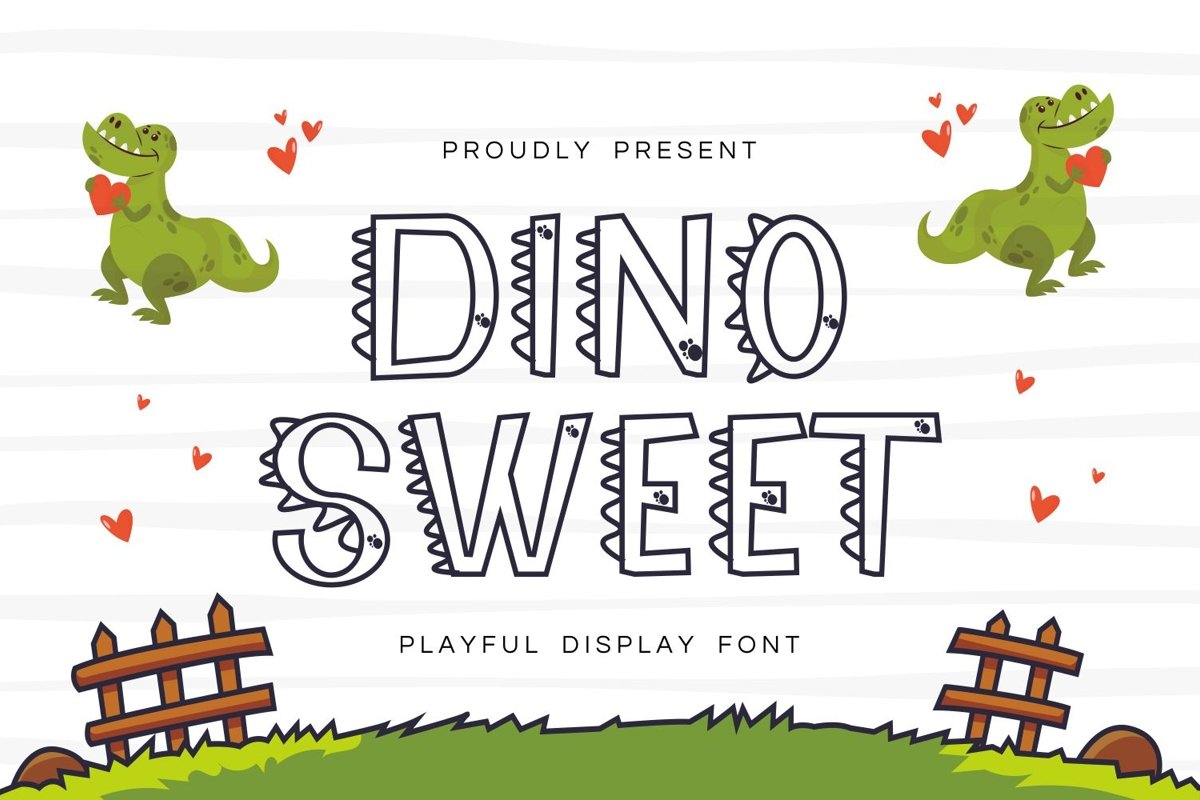
DinooSweet is san serif display come with cartoon themes. We wanted to create the most unique character. It matches applies in some designs such as the logotype, brand, packaging, quotes, cute poster, kids shirt, cover book, birthday invitation and more custom design. The features uppercase, lowercase, numeral, punctuation & symbol, multilingual support, PUA encoded (fully accessible without additional design software).